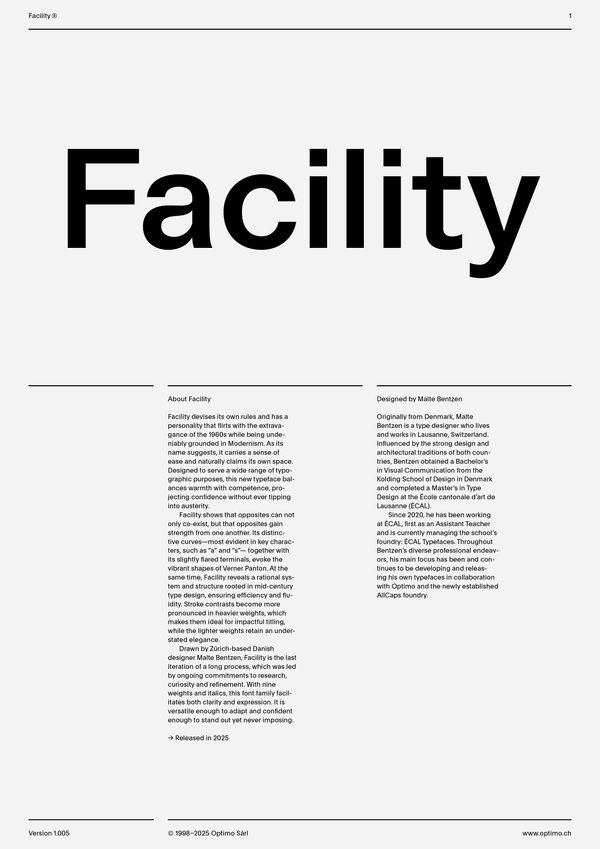
Facility Variable
Case Sensitive Forms
All Caps [cpsp]
Case Sensitive Forms [case]
This function formats the text in uppercase and adjusts spacing between all capital letters. It also applies the ‘Case Sensitive Forms’ feature which replaces certain characters with alternates that are better suited for all capital text, especially related to punctuation.
Contextual Alternates
Contextual Alternates [calt]
This feature adapts the position of a glyph after its surrounding context. For instance, a dash placed between two uppercase letters or numbers will be replaced by an uppercase version of the dash, slightly higher. This feature is usually active by default in Adobe applications.
Alternate thin diacritics, punctuation, symbols
Stylistic Set 1 [ss01]
This feature replaces glyph(s) with stylistic alternate(s).
Alternate Q
Stylistic Set 2 [ss02]
This feature replaces glyph(s) with stylistic alternate(s).
Tabular Lining Figures
Tabular Lining Figures [tnum–lnum]
Based on the proportions of the capitals, lining figures have an invariable height. With the combination of the tabular spacing format, the width of each numeral is uniformized. This feature is useful when numerals need to all lined up. It facilitates the reading of numbers set within columns or tables. As some applications don’t have access to this feature, proportional figures are set as the default choice.
Fractions
With this feature, any numbers separated by a slash will automatically turn into a fraction. To fit in fraction configuration, numerals have been designed smaller and their weights have been adjusted to suit the typeface.
Lowercase math symbols
Stylistic Set 6 [ss06]
This feature activates alternate lowercase positioning of mathematical symbols.
This feature replaces any letter following a numeral with its matching superior letters. French language uses the ordinal indicators such as ‘er’ for 1er premier, while Spanish, Portuguese and Italian require the feminine and masculine ordinals ‘a,’ ‘o’ for 1º, 1ª. Ordinals are designed to match the weight of the typeface.
Slashed Zero
Slashed Zero [zero]
Originally created to avoid the confusion between the ‘0’ and the ‘O’, this feature substitutes all zeros in a selected text by a slashed form of the zero.
Multiply sign
Stylistic Set 20 [ss20]
This feature substitutes the letter “x” into the multiplication sign.
Numerators [numr]
This feature substitutes glyphs with their matching smaller alternates. The numerators are the same glyphs that are used to create fractions, their vertical position remains within the capital letters height. These glyphs are reduced in size and designed slightly heavier to keep them consistent with the rest of the font.
This feature substitutes glyphs with their matching smaller alternates and low position glyphs. The denominators are the same glyphs that are used to create fractions, their vertical position remains within the base line. These glyphs are reduced in size and designed slightly heavier to keep them consistent with the rest of the font.
Superscript/Superiors
This feature substitutes glyphs with their matching smaller alternates which are set slightly above the height of the capital letters. These glyphs are reduced in size and designed slightly heavier to keep them consistent with the rest of the font.
Drawn by Zürich-based Danish designer Malte Bentzen, Facility is the last iteration of a long process, which was led by ongoing commitments to research, curiosity and refinement. With nine weights and italics, this font family facilitates both clarity and expression. It is versatile enough to adapt and confident enough to stand out yet never imposing.